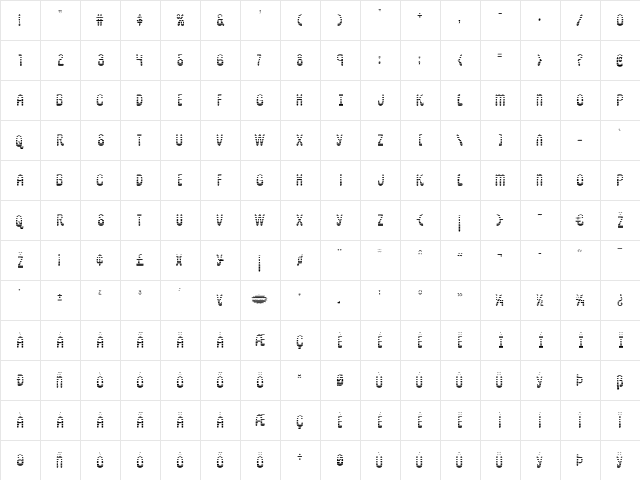
Pepperland Gradient Regular
Design Context for Pepperland Gradient Typeface
Pepperland Gradient is a composed and adaptable typeface that performs quietly and consistently across a wide range of design contexts.